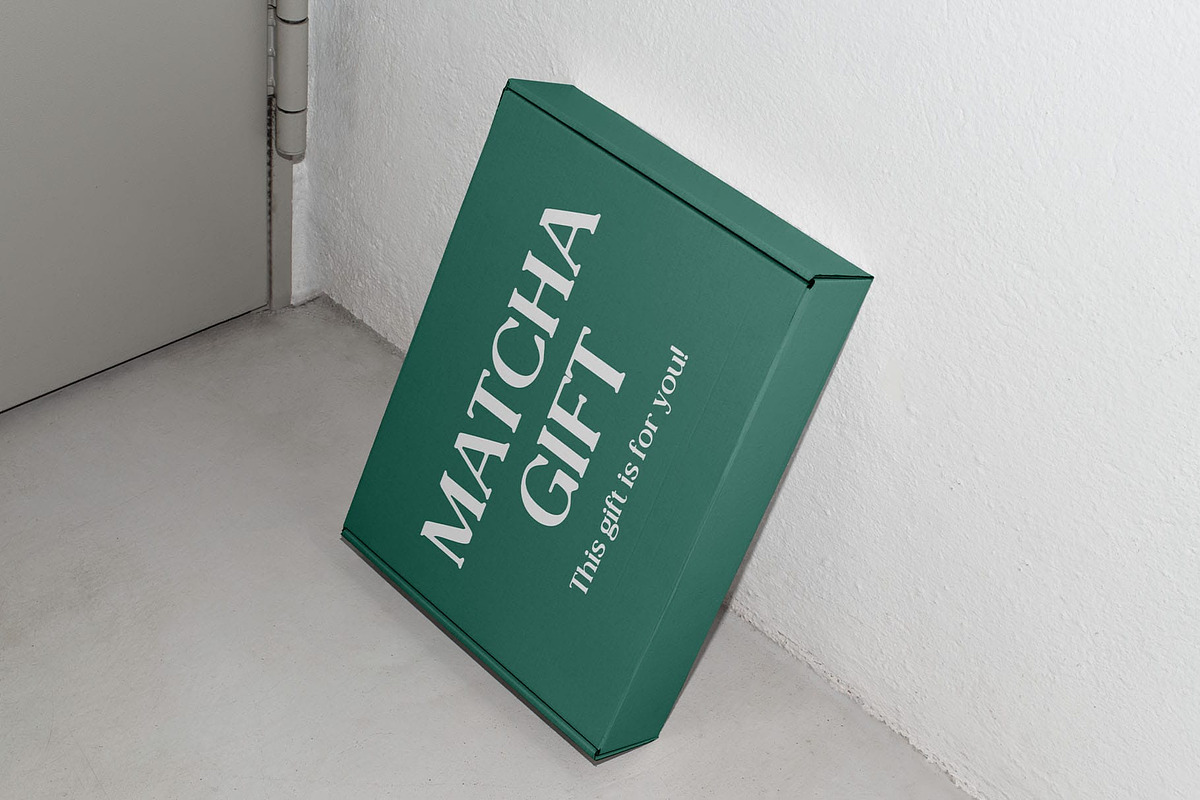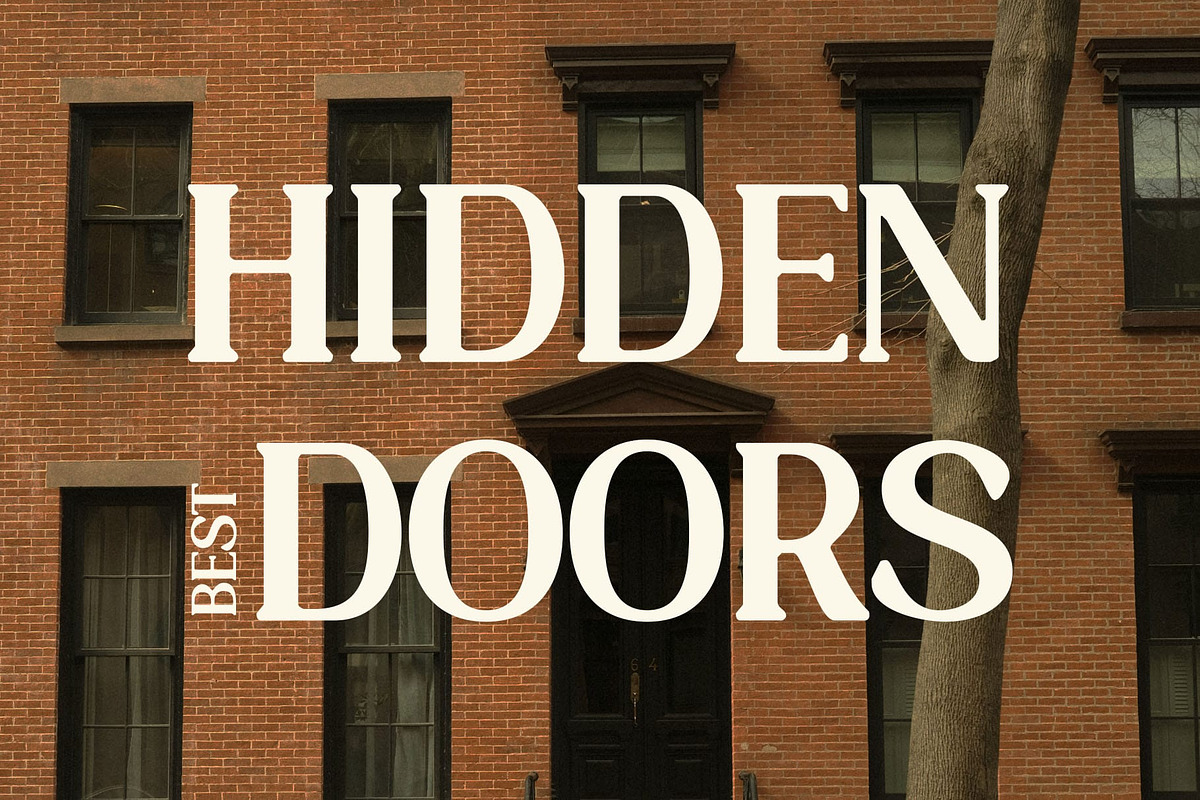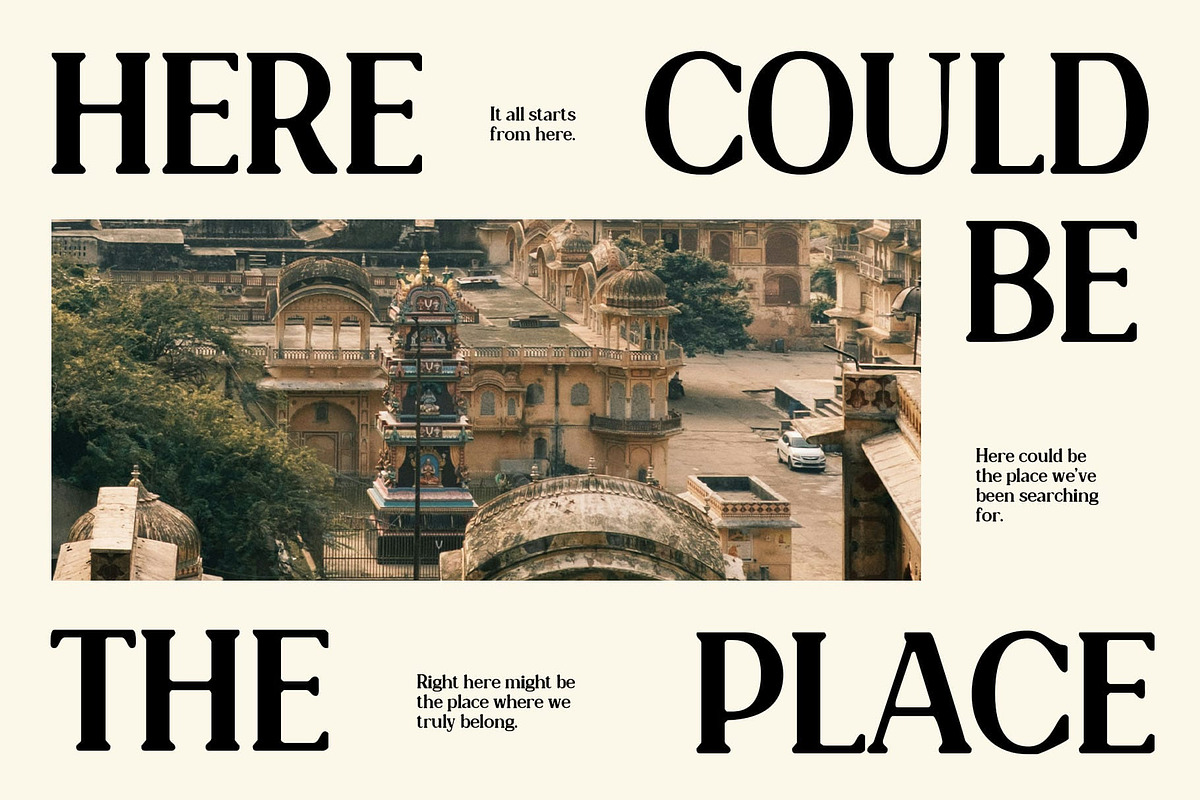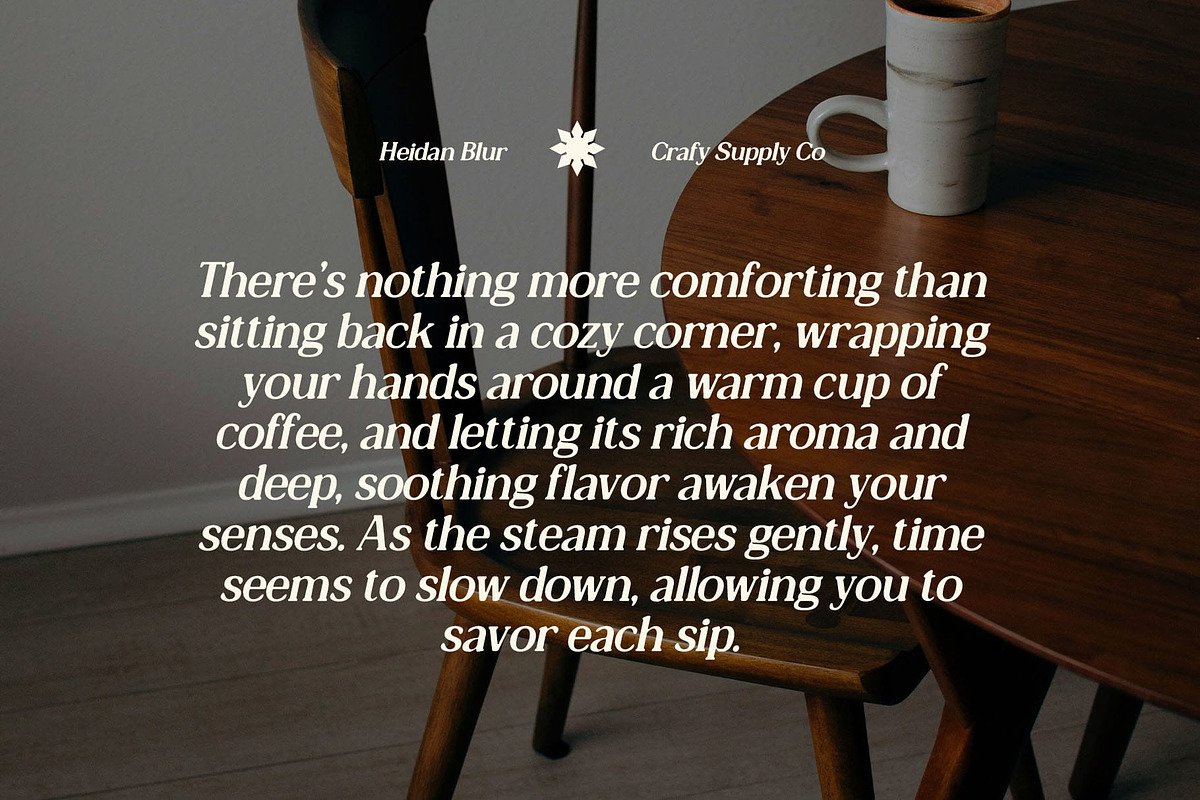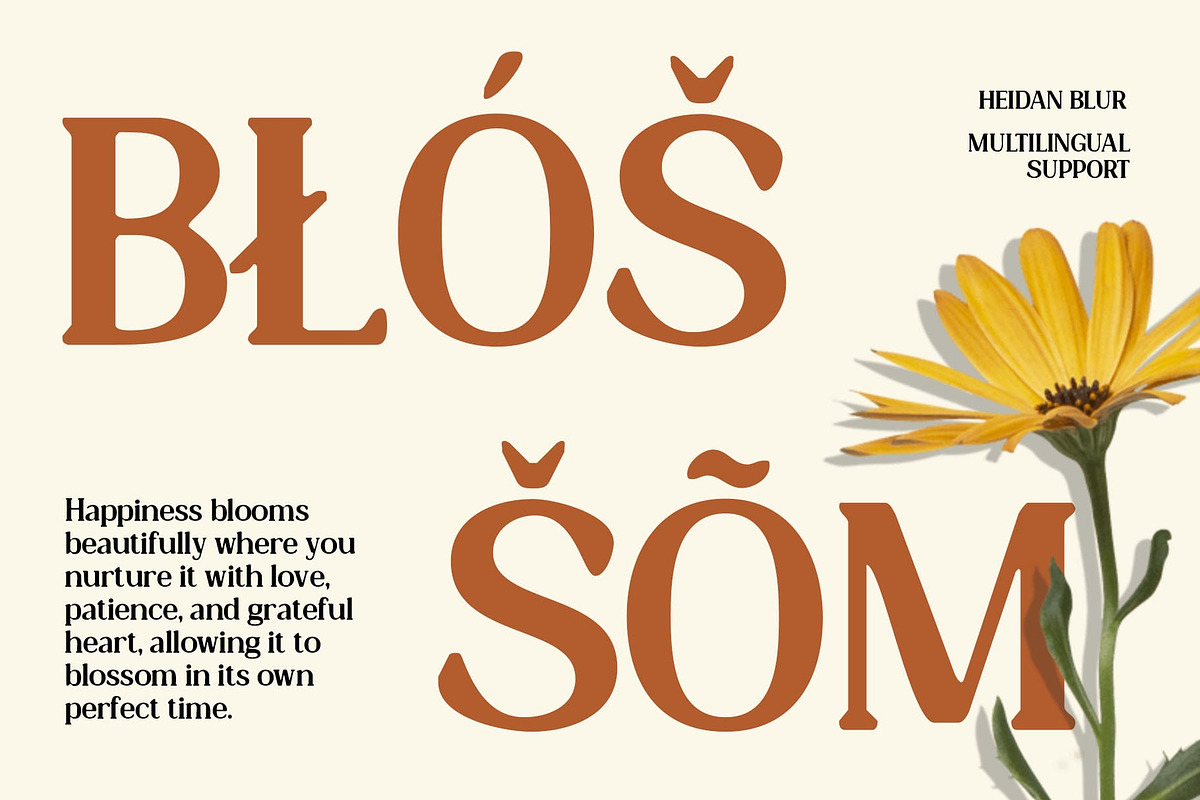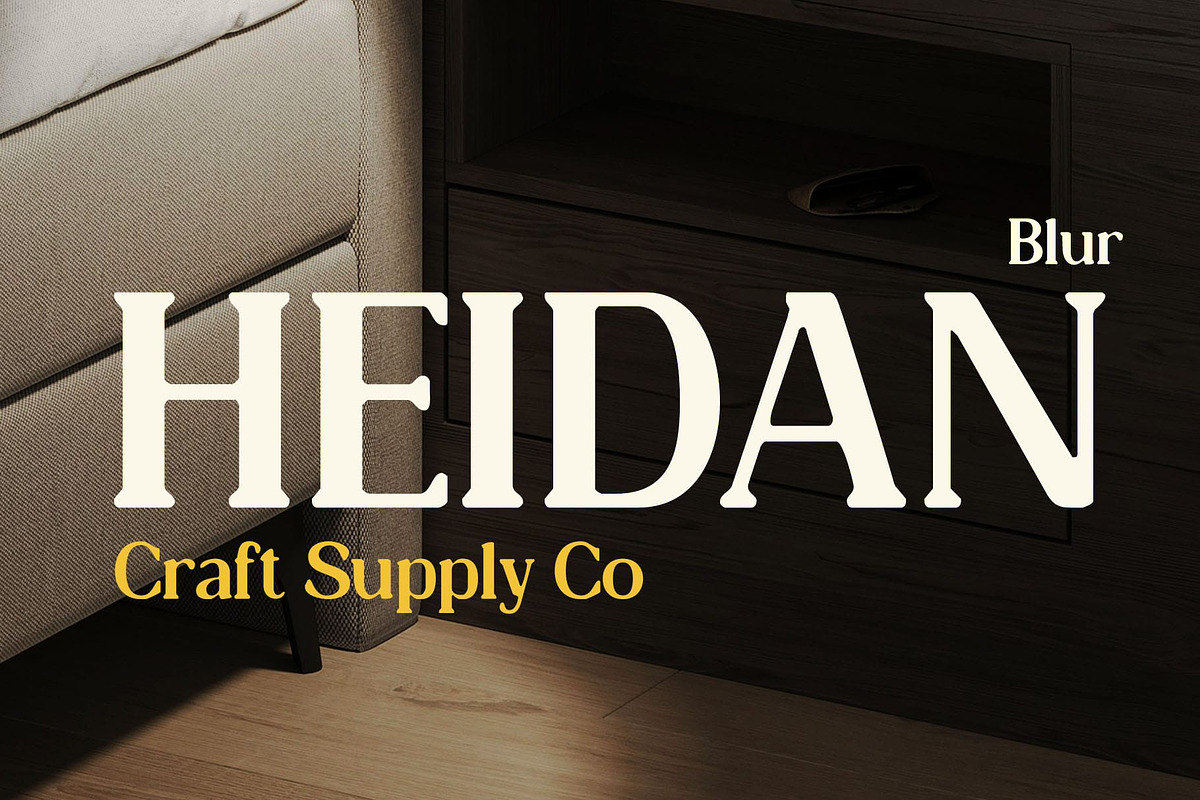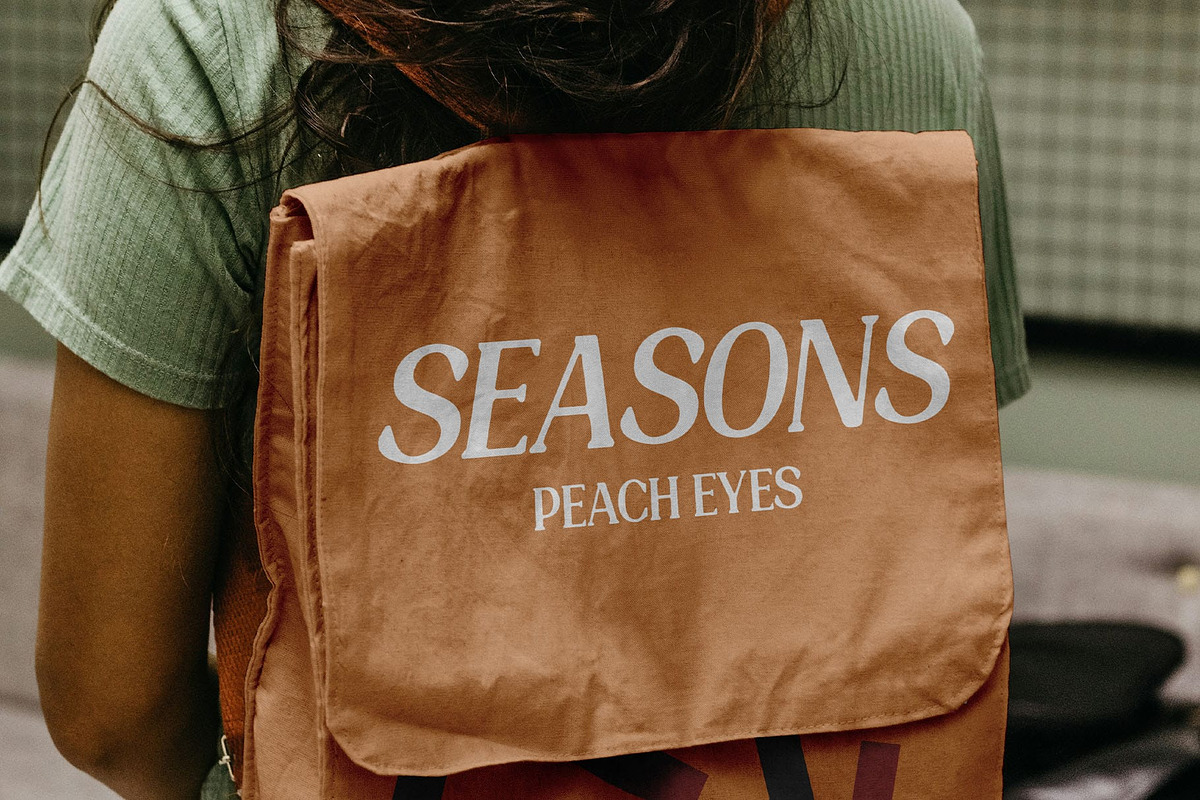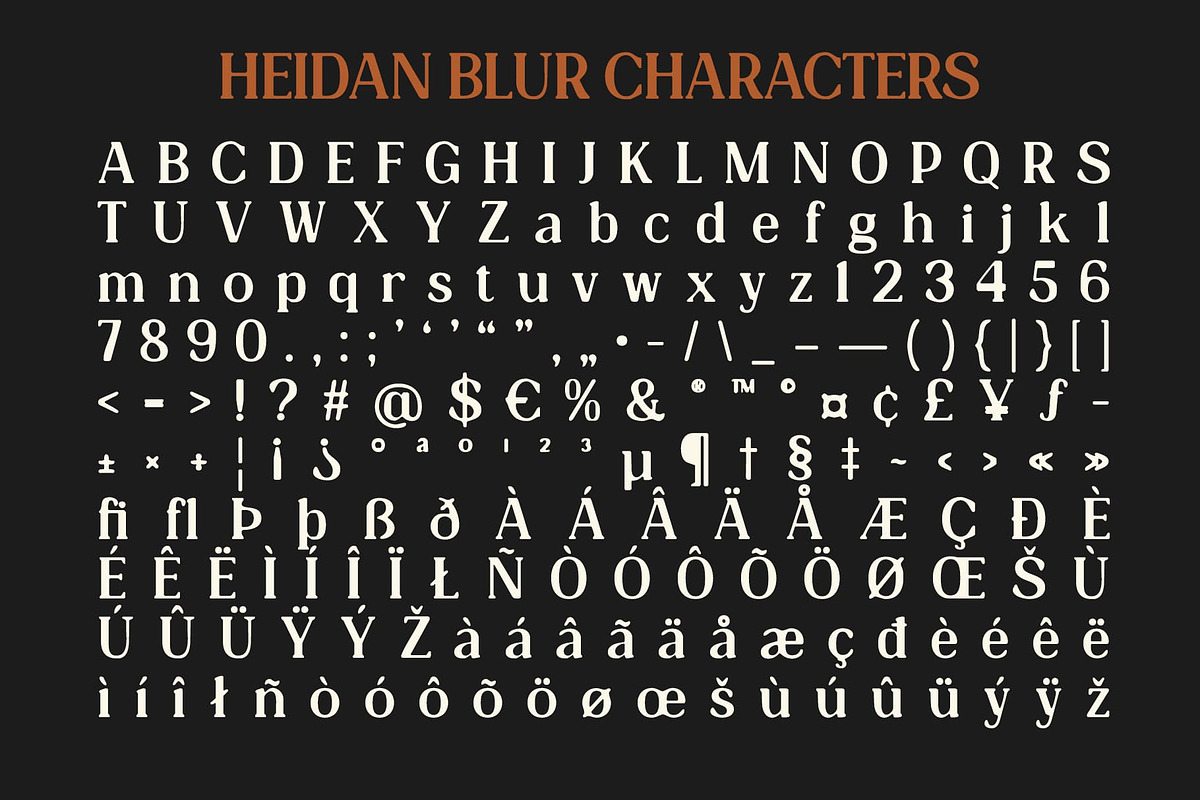
Heidan Blur
Heidan Blur Font – A Fusion of Classic Elegance and Modern Experimentation
Modern Serif Font with Wedge Serifs Heidan Blur is a contemporary serif font that seamlessly blends classic sophistication with a modern, artistic twist. Featuring sharp wedge serifs, it offers a structured and refined appearance, with an elegant contrast between thick and thin strokes. This unique balance gives the font a timeless yet innovative look, making it a perfect choice for high-end and creative designs
Blur Effect for a Soft and Artistic Look What sets Heidan Blur apart is its subtle blur effect, which introduces an ethereal and dreamlike quality to its letterforms. This effect adds an experimental and mysterious touch, softening the font’s sharp edges while maintaining its sophisticated structure. The result is a graceful and modern aesthetic, perfect for projects that demand both elegance and originality.
Perfect for Luxury and High-End Designs Designed for luxury branding, high-end editorials, and sophisticated packaging, Heidan Blur offers a distinctive presence that enhances premium design projects. Its combination of crisp structure and artistic blur makes it a standout choice for elegant yet unconventional aesthetics.
Balancing Tradition and Innovation Heidan Blur reimagines the serif font with a contemporary twist, making it perfect for designers who seek a balance between heritage and modern creativity. Whether used for fashion branding, book covers, or exclusive product design, it delivers a captivating and stylish impression.
- Heidan Blur Regular
- Heidan Blur Italic